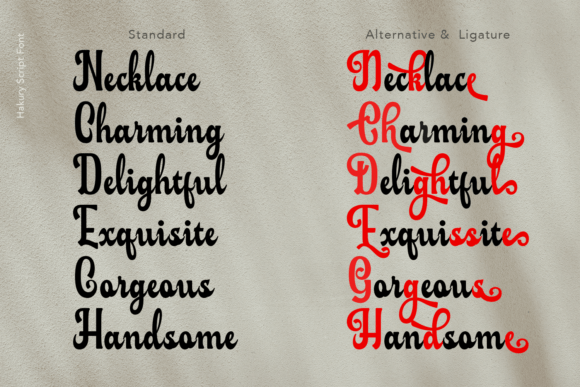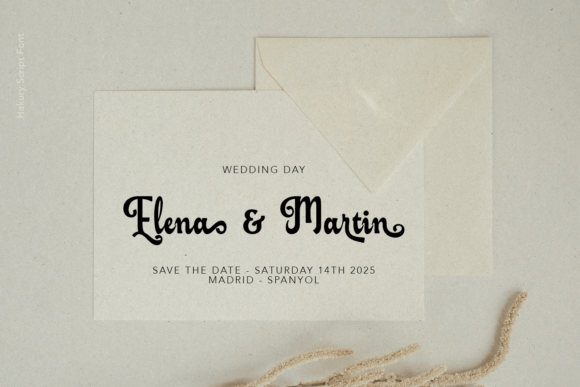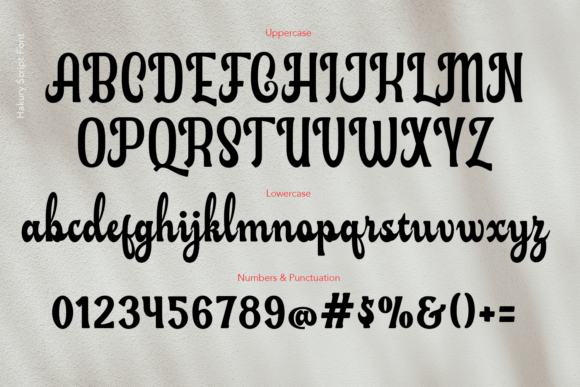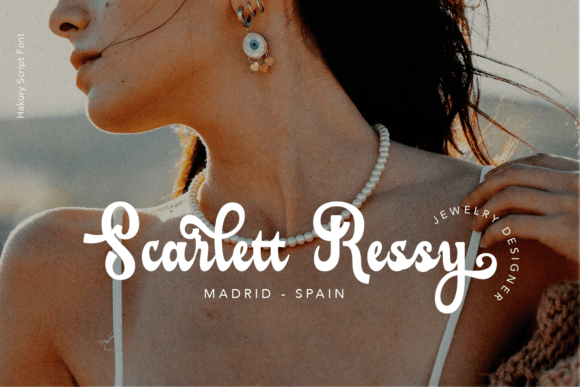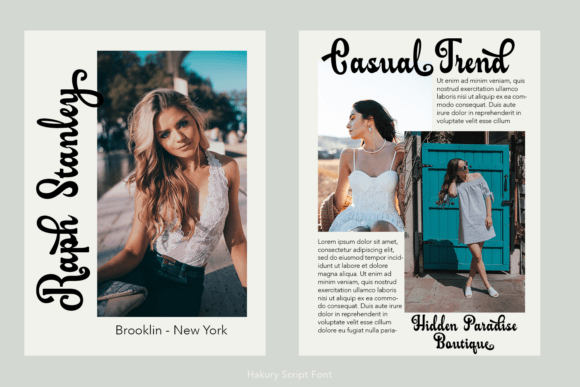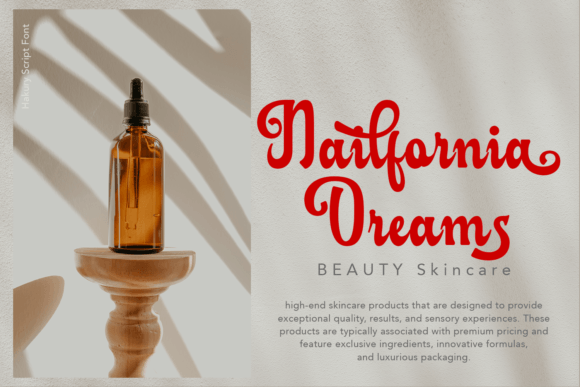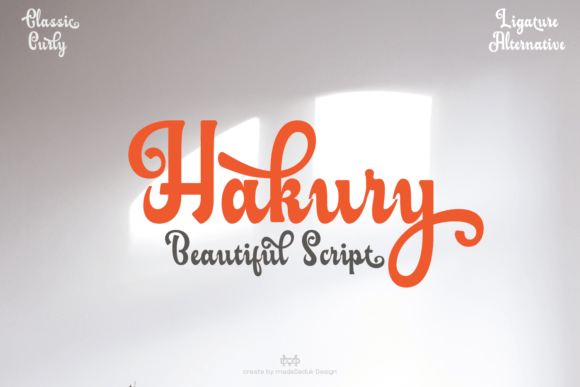
Introducing Hakury Font: The Ultimate Retro Script Font for Creative Projects
In the world of typography, fonts play a crucial role in bringing creative visions to life. For designers, crafters, and artists, finding the perfect font can be a daunting task. However, if you’re looking for a script font that exudes a retro, curly style with a touch of elegance, look no further than Hakury Font. In this article, we’ll dive into the world of Hakury Font, exploring its features, uses, and benefits for various creative projects.
What is Hakury Font?
Hakury Font is a beautifully crafted script font that boasts a unique retro style with curly, swirling lines. Its distinctive appearance makes it perfect for a wide range of creative projects, from poster designs and book covers to merchandise, fashion brands, and advertising. With its rich, elegant feel, Hakury Font is sure to add a touch of sophistication to any design.
Key Features of Hakury Font
So, what sets Hakury Font apart from other script fonts? Here are some of its key features:
- Retro, curly style: Hakury Font’s unique retro style is characterized by its curly, swirling lines that evoke a sense of nostalgia and elegance.
- Plenty of alternative characters and ligatures: With a wide range of alternative characters and ligatures, Hakury Font offers endless possibilities for customization and creativity.
- Great for various creative projects: From poster designs and book covers to merchandise, fashion brands, and advertising, Hakury Font is versatile enough to be used in a variety of creative projects.
Uses of Hakury Font
With its versatility and unique style, Hakury Font can be used in a wide range of creative projects, including:
- Poster designs: Add a touch of elegance to your poster designs with Hakury Font’s curly, swirling lines.
- Book covers: Give your book covers a sophisticated look with Hakury Font’s rich, elegant feel.
- Merchandise: Use Hakury Font to create eye-catching merchandise, such as t-shirts, mugs, and more.
- Fashion brands: Hakury Font’s unique style makes it perfect for fashion brands looking to add a touch of elegance to their branding.
- Advertising: Use Hakury Font to create eye-catching advertisements that grab attention.
- Magazines: Add a touch of sophistication to your magazine designs with Hakury Font.
- Album covers: Give your album covers a unique, retro look with Hakury Font.
- Wedding invitations: Use Hakury Font to create beautiful, elegant wedding invitations.
Benefits of Using Hakury Font
So, why choose Hakury Font for your creative projects? Here are some benefits of using this amazing script font:
- Unique style: Hakury Font’s retro, curly style sets it apart from other script fonts.
- Versatility: With its wide range of uses, Hakury Font is a versatile font that can be used in various creative projects.
- Elegance: Hakury Font’s rich, elegant feel makes it perfect for projects that require a touch of sophistication.
- Customization: With plenty of alternative characters and ligatures, Hakury Font offers endless possibilities for customization.
| Font Name | Hakury Font |
| Author | madeDeduk |
In conclusion, Hakury Font is a beautifully crafted script font that offers a unique retro style with curly, swirling lines. With its versatility, elegance, and customization options, Hakury Font is perfect for a wide range of creative projects, from poster designs and book covers to merchandise, fashion brands, and advertising. Whether you’re a designer, crafter, or artist, Hakury Font is sure to become a valuable addition to your font collection.